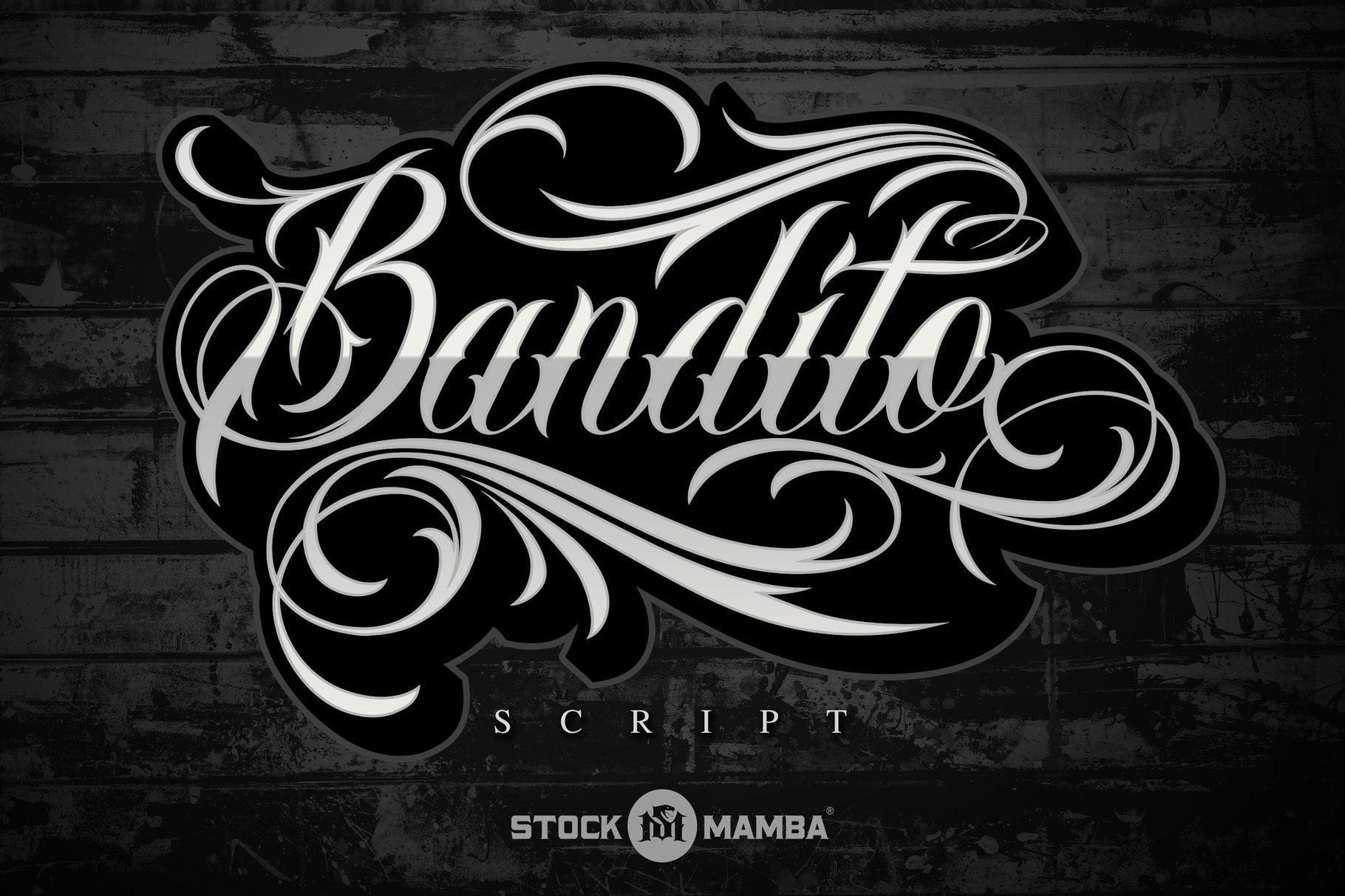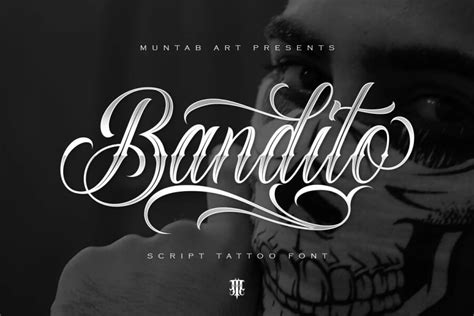
Bandito Script Font Free
Bandito Script Font Free - Bandito script font is an urban tattoo script font. Web december 16, 2023.
Web december 16, 2023. Bandito script font is an urban tattoo script font.
Bandito script font is an urban tattoo script font. Web december 16, 2023.
Web december 16, 2023. Bandito script font is an urban tattoo script font.
Bandito Script Font Is An Urban Tattoo Script Font.